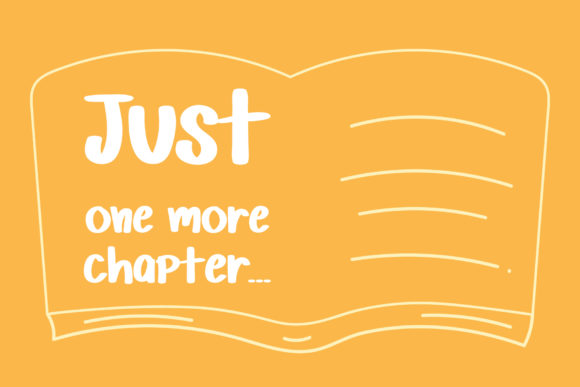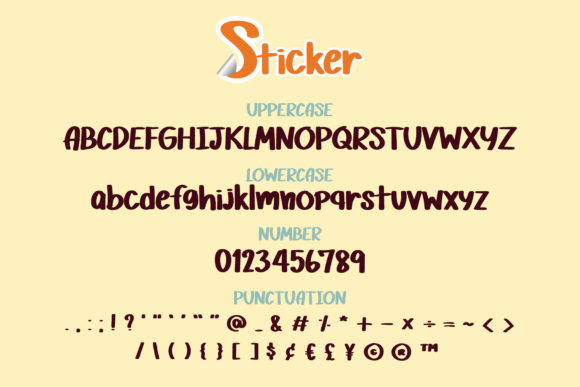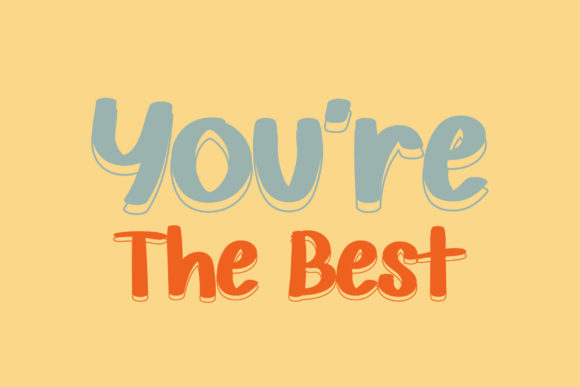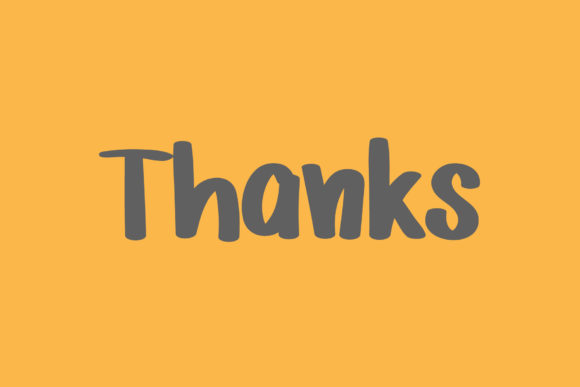
About Sticker Font
Sticker is a bold handwritten font, carefully handcrafted to become a true favorite. Its casual charm makes it appear wonderfully down-to-earth, readable and, ultimately, incredibly versatile. Sticker will look outstanding in any context, whether it’s being used on busy backgrounds or as a standalone headline!